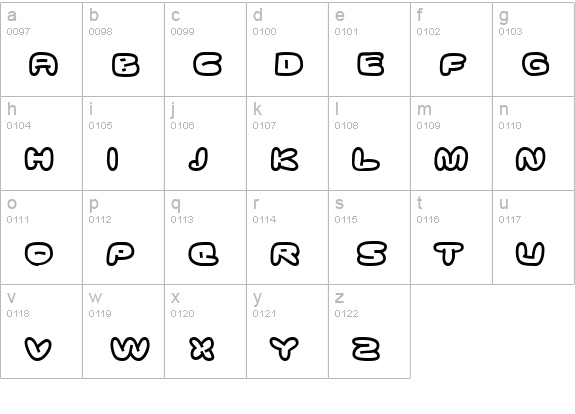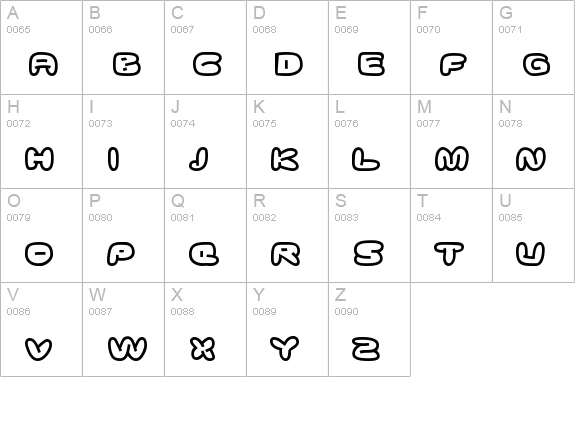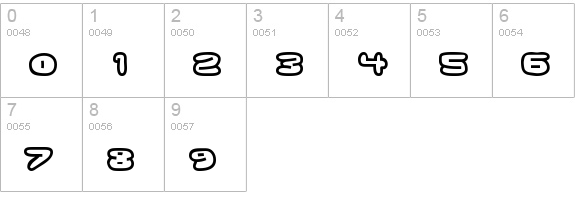
Ghostmeat Font Details
Introducing Ghostmeat font, a hauntingly beautiful typeface that will add an eerie charm to your design projects. This unique font features a ghostly aesthetic with a touch of whimsy, making it perfect for Halloween-themed designs, spooky invitations, or any project in need of a mysterious flair. What sets Ghostmeat font apart is not only its ghostly appearance but also its versatility. Whether you're creating posters, social media graphics, or branding materials, this font will bring a touch of the supernatural to your designs. Best of all, Ghostmeat font is available for free download at FontsMarket.com. So, don't miss out on this spooky yet stylish typeface that will surely make your designs stand out from the crowd. Download Ghostmeat font today and add a touch of the paranormal to your creative projects!